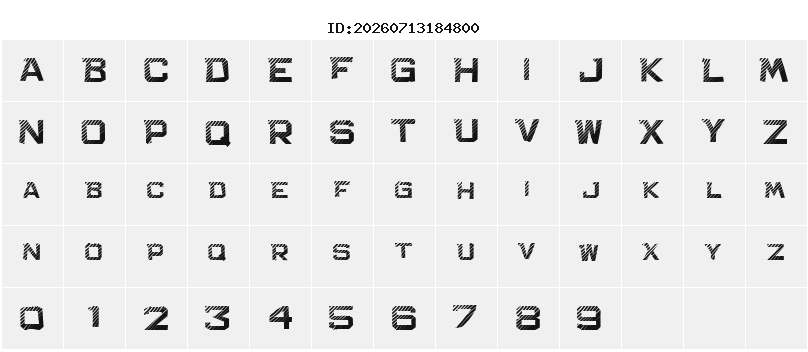
• Font Name: Bachelor Pad Wood JL
• Designer: Jeffrey N. Levine
• Manufacturer: Jeff's Fonts & Dingbats
• Description: "Bachelor Pad JL" with a wooden texture added.
Bachelor Pad Wood JL.ttf is a modern, elegant sans-serif font designed for ultimate readability and visual harmony. Perfect for branding, headlines, web design, and print materials.